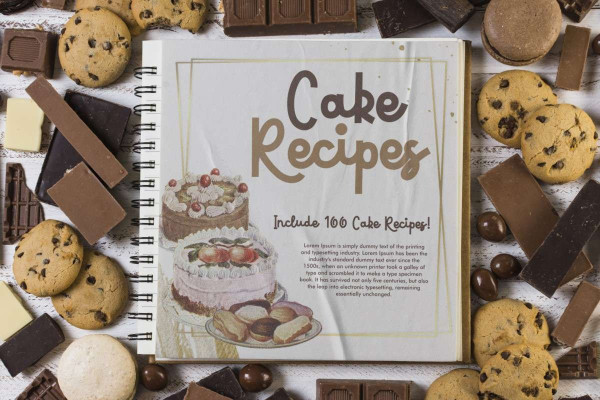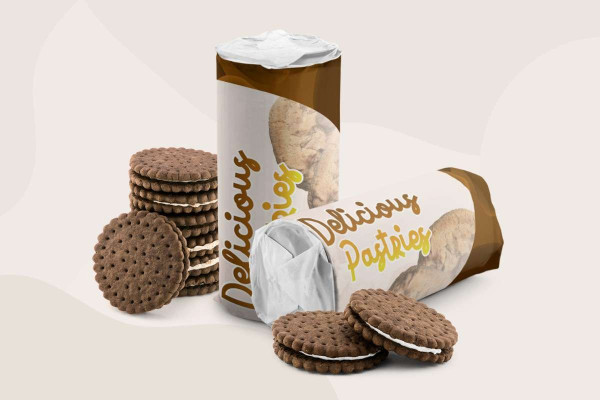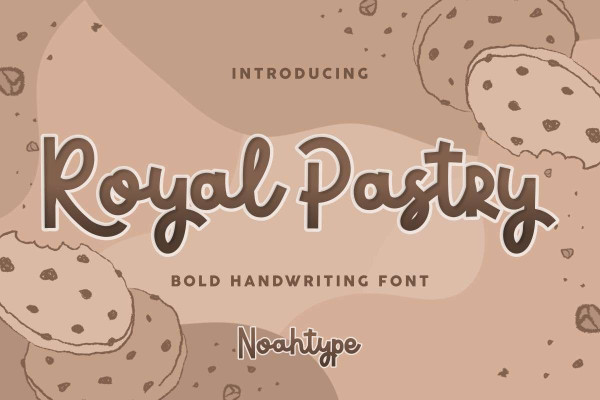
Royal Pastry Font
Royal Pastry Font is a retro and curly script font. This font pairs well with modern san serifs, classic serifs or stands strongly on its own as a heading or editorial font. This bold handwritten font will be amazing for many projects : café menu, invitations, party, event, recipes, products label and many more
Royal Pastry Font includes full set of Uppercase and Lowercase Basic Characters, Numerals and Punctuation. Also it contains ligatures and alternates characters to perfectly make natural handwriting look that add more beautiful and aesthetic fonts to perfect your extraordinary project.